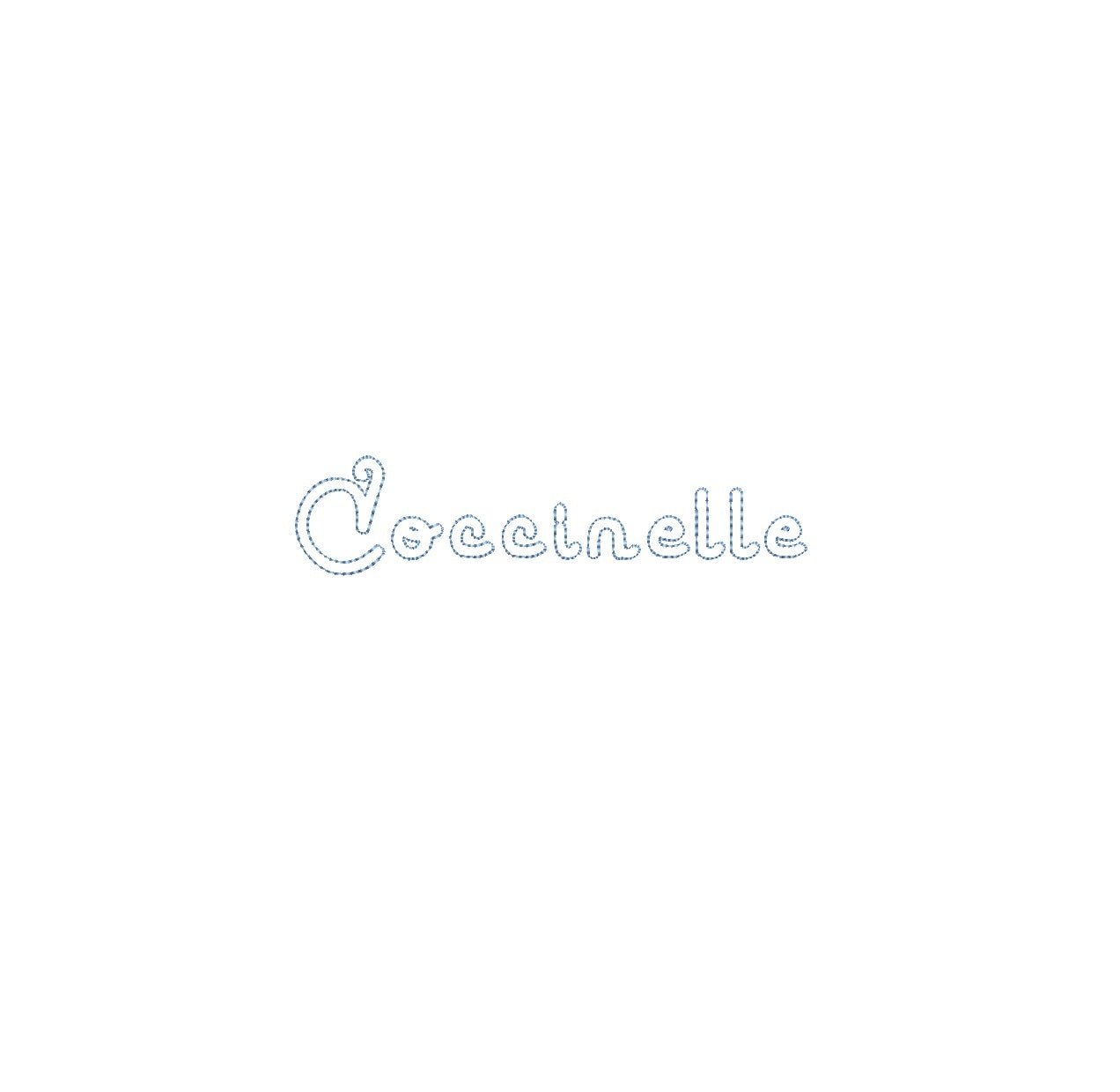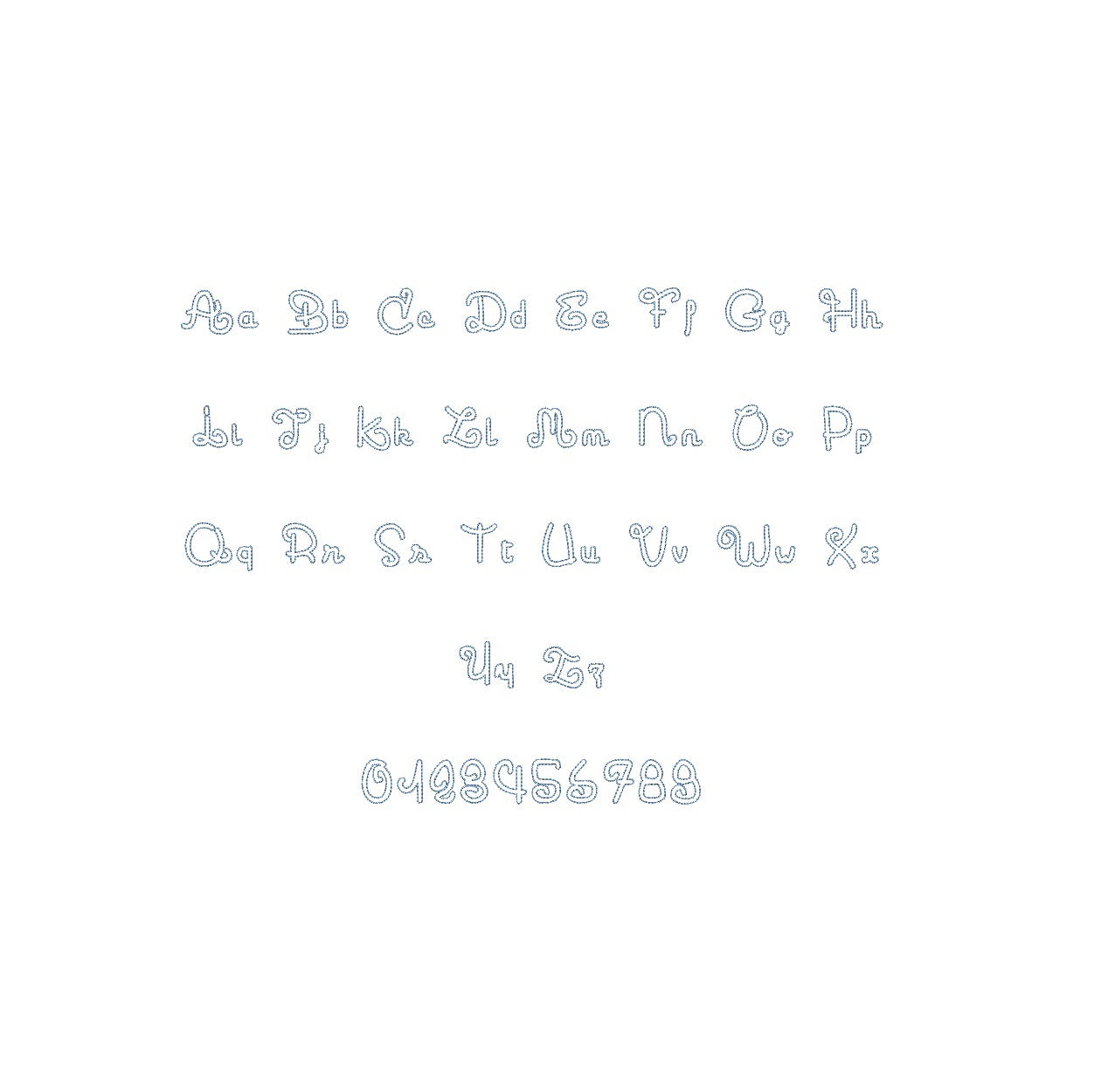
Discover the versatile Coccinelle Bean Stitch Outline ESA font, perfectly compatible with Wilcom Studio e4.5.6 and Hatch 3 versions and beyond. Elevate your embroidery projects with this exquisite font that brings a touch of elegance and whimsy. Its intricate bean stitch outline design adds depth and uniqueness to your creations. Ideal for monograms, labels, and decorative elements. Enhance your embroidery experience with seamless integration and precise stitching. Get the Coccinelle Bean Stitch Outline ESA font today to unlock a world of creative possibilities in Wilcom Studio and Hatch software. Make your designs stand out with this exceptional font.